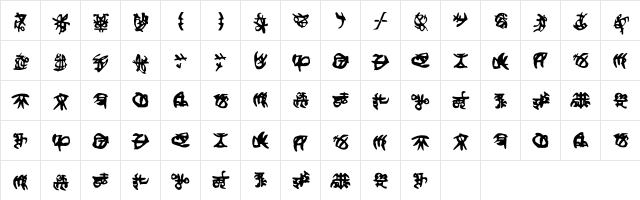
Cybertronianfinal Regular Font Preview
Cybertronianfinal Regular
Design Context for Cybertronianfinal Typeface
Cybertronianfinal channels digital-age aesthetics through its sharp, structured letterforms — ideal for brands that want to signal innovation.
Pro Tip: Use Cybertronianfinal in combination with a neutral sans for body text. Let it define the brand voice in headlines while keeping reading comfortable elsewhere.